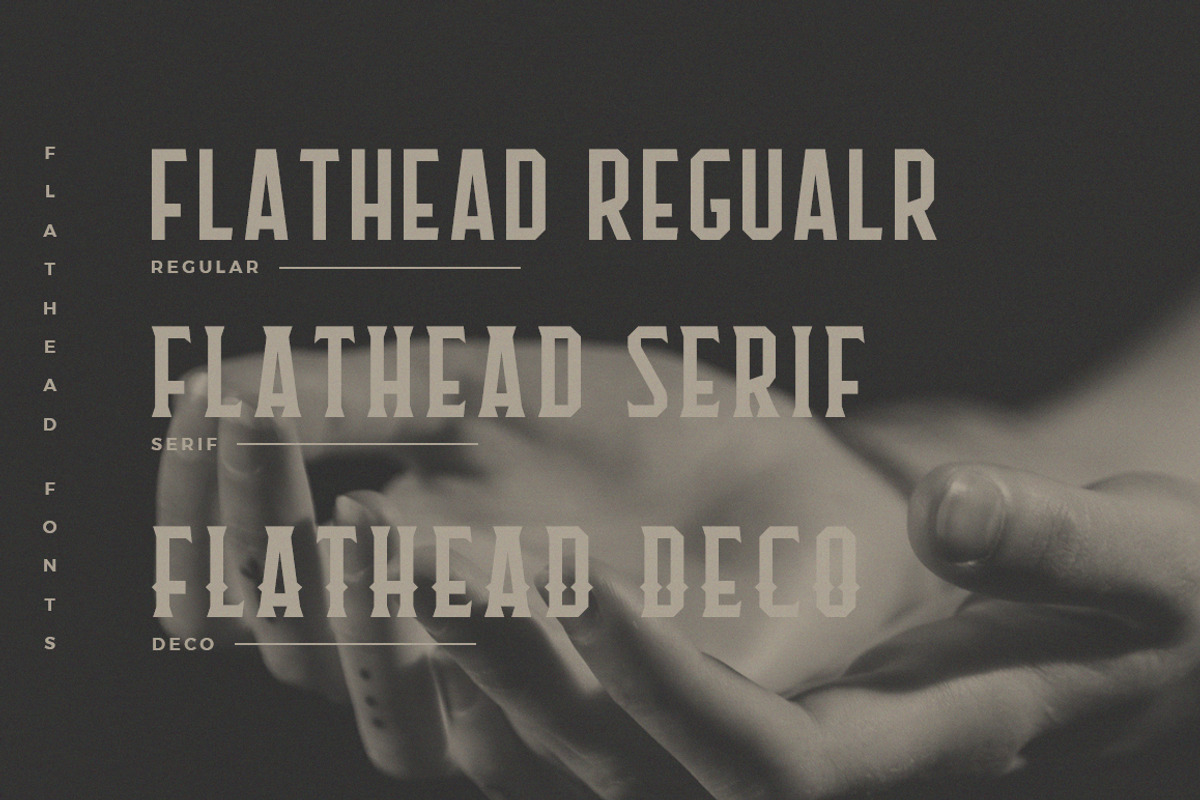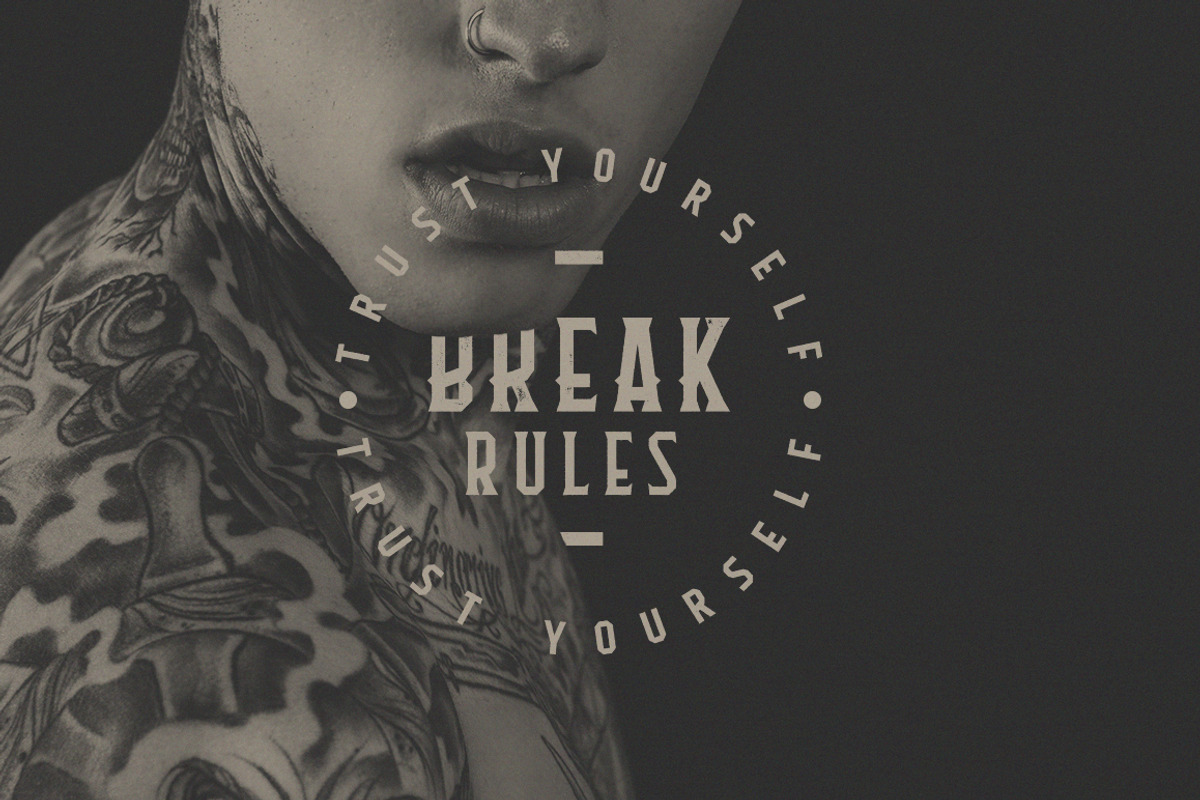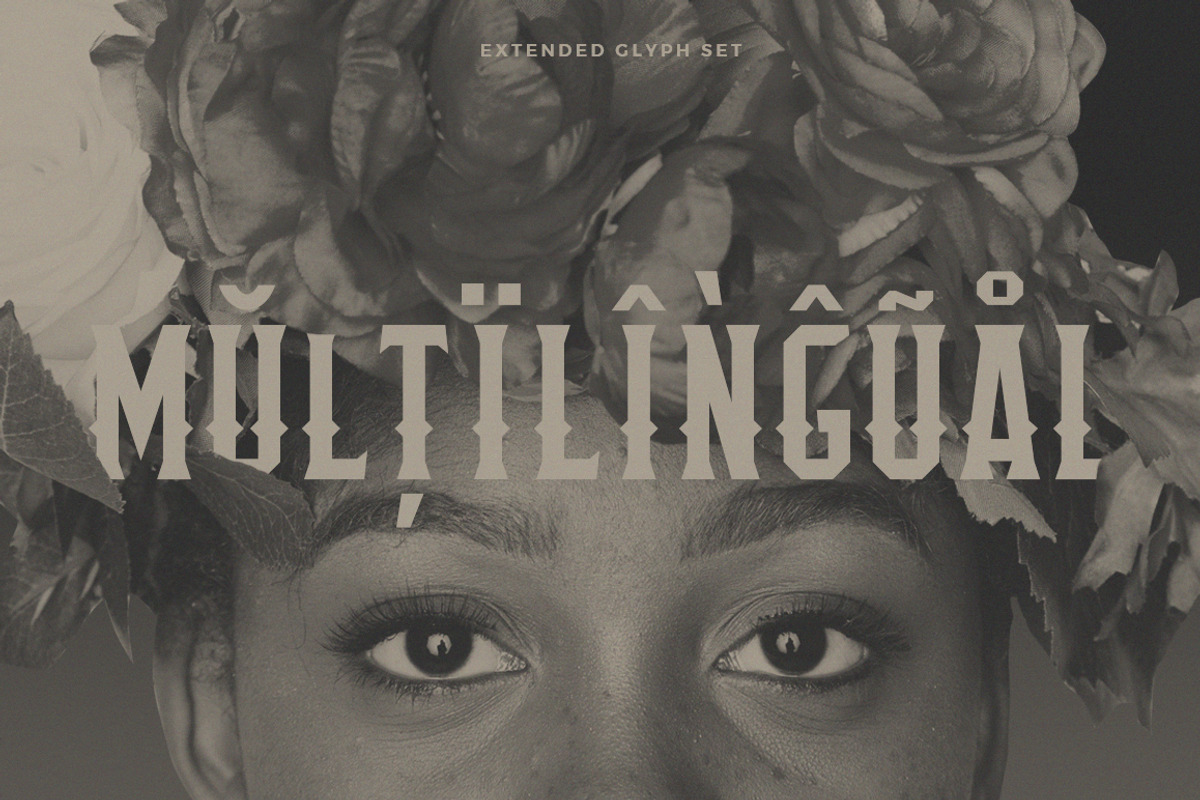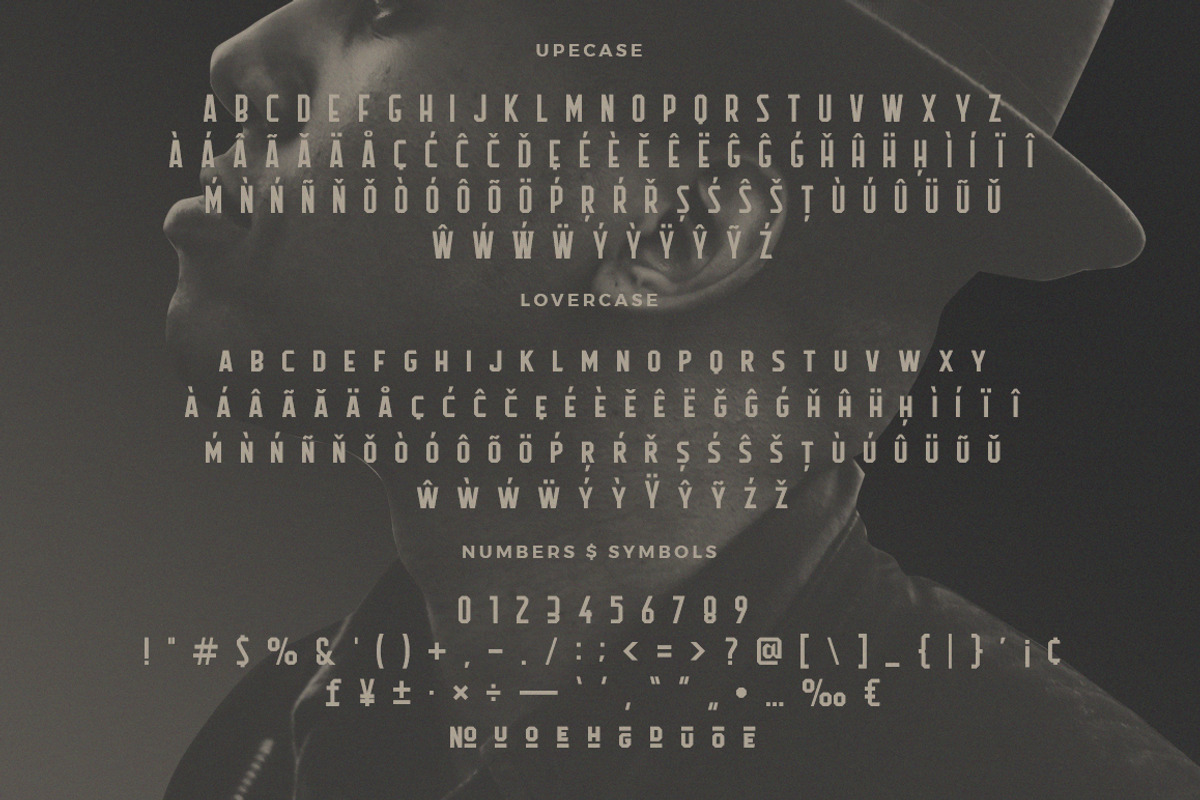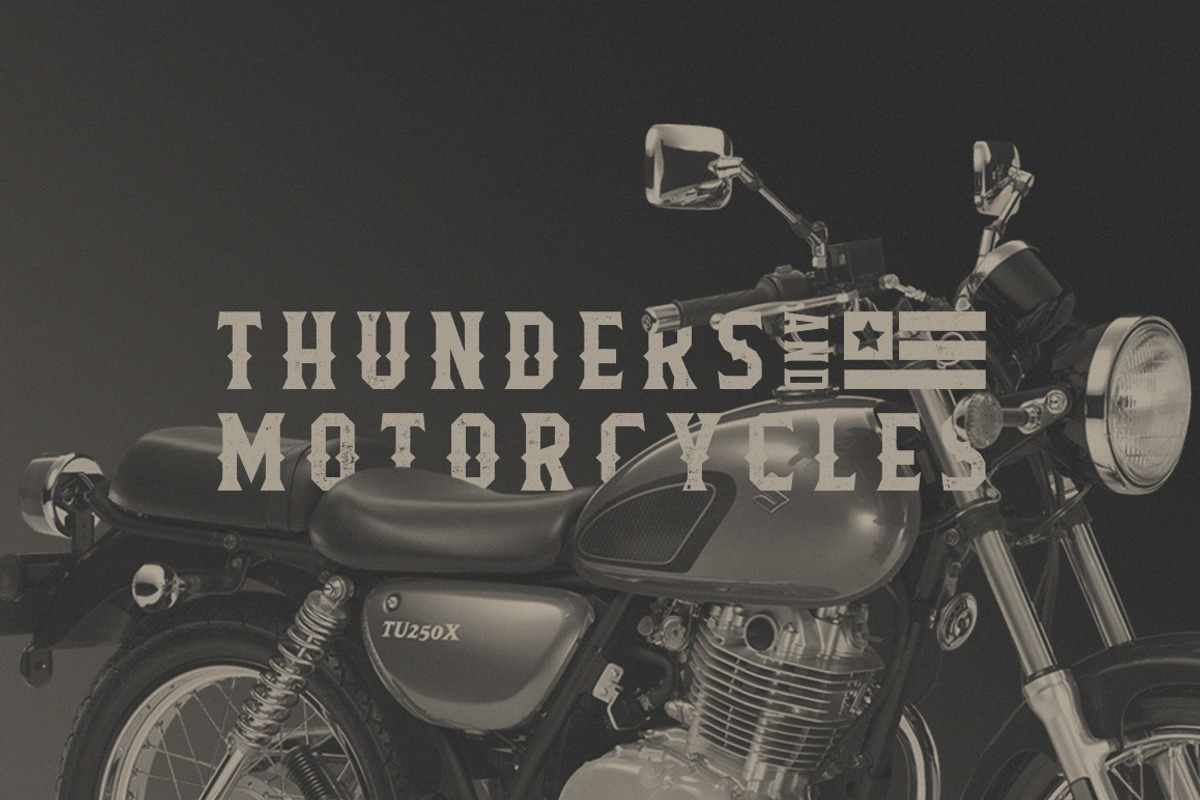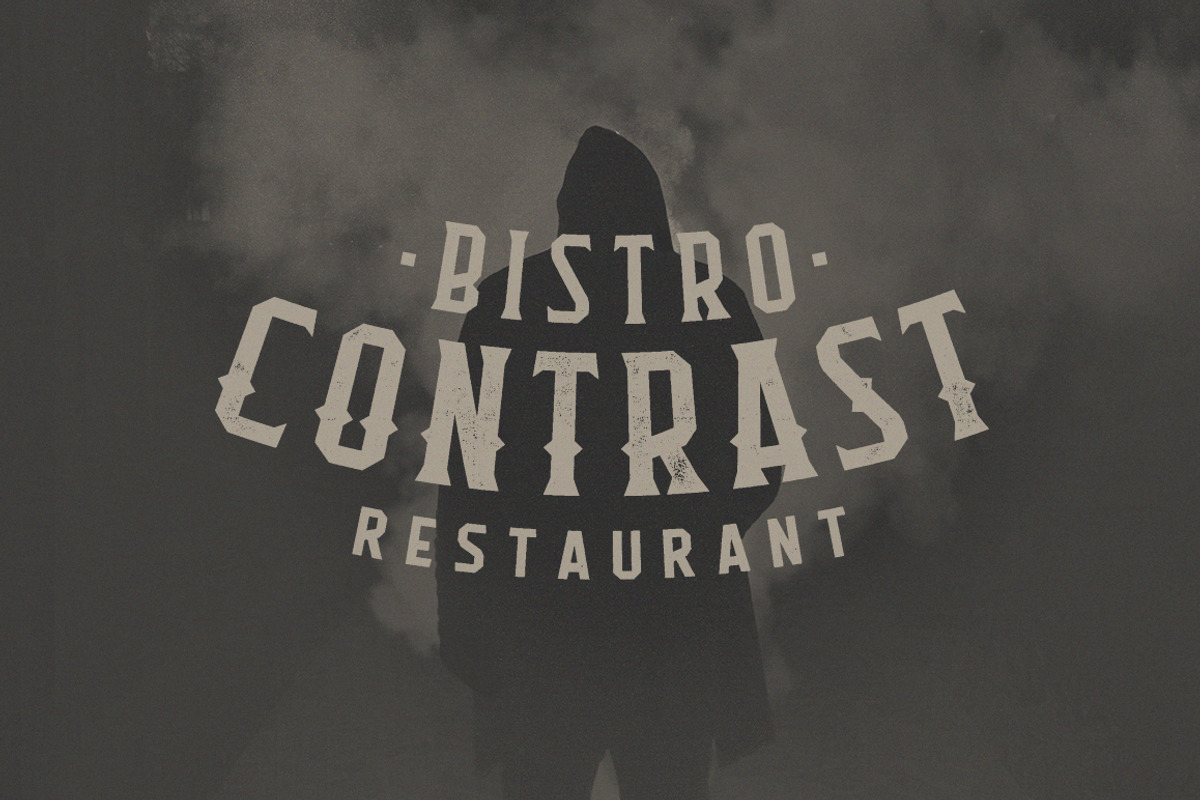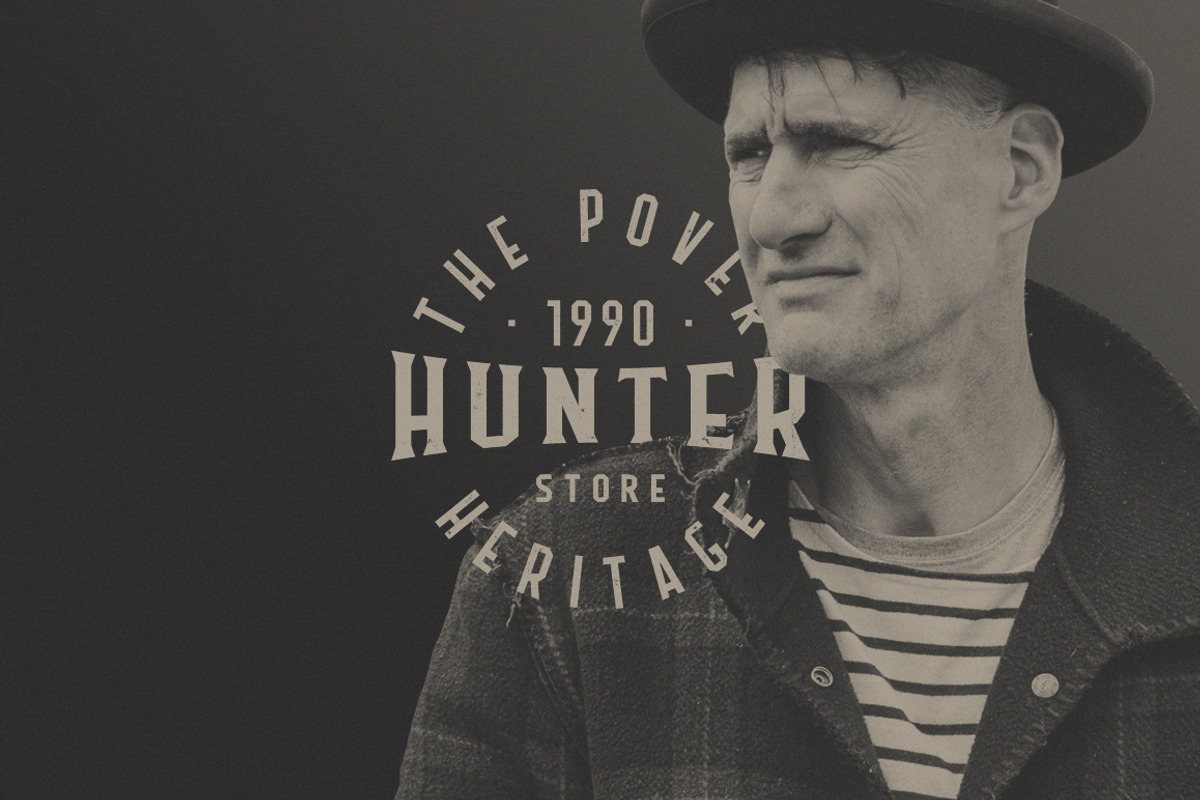
Flathead Vintage Typeface | Font
Flathead Vintage Typeface | Font by Headfonts is a font selected for branding, posters, packaging, typography.
- Flathead Regular
- Flathead Serif
- Flathead Deco
Flathead Vintage Typeface | Font by Headfonts fits naturally into Branding, posters, packaging, typography.